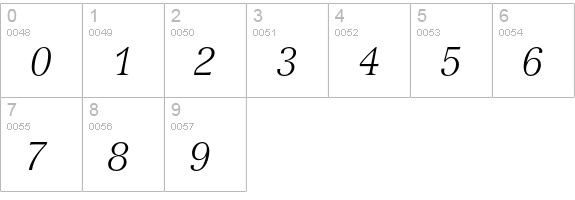
Versailles LightItalic is a stunningly elegant font that exudes sophistication and grace. Its delicate yet distinctive letterforms captivate the eye and add a touch of refined charm to any design project. The flowing italic style adds a sense of movement, conveying a sense of effortless grace and modernity. This font is perfect for those seeking a typeface that is both classic and contemporary, bridging the gap between traditional and modern design aesthetics. Its thin and graceful strokes create a sense of lightness and airiness, making it ideal for headlines, logos, and branding materials. What sets Versailles LightItalic apart is not just its exquisite design, but also the fact that it is absolutely free to use. FontsMarket.com offers this font as a freely available download, allowing designers, creatives, and enthusiasts alike to access and utilize its beauty without any limitations. Whether you're working on a personal project or a professional endeavor, Versailles LightItalic is a versatile font that will elevate your designs to new heights. Its timeless elegance and effortless style make it a must-have in any designer's toolkit. So why wait? Download Versailles LightItalic for free at FontsMarket.com and unleash its beauty in your next creative masterpiece. Let its delicate curves and refined lines inspire you to create stunning designs that leave a lasting impression.